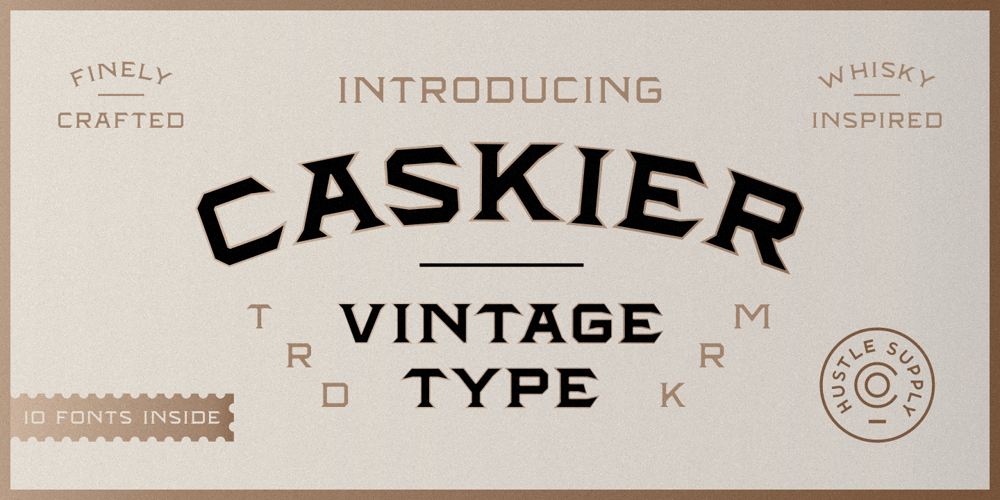
Caskier Font Family was designed by Jeremy Vessey and published by Hustle Supply Co. Caskier contains 10 styles and family package options. CASKIERCaskier is a whiskey inspired layered typeface. With 10 font files, you get access to a variety of potential aesthetics ranging from clean, layered or roughened. What’s Included? Regular, Bold, Outlined, Shadow, Roughened + Oblique Versions Western European Character Set A variety of ligatures